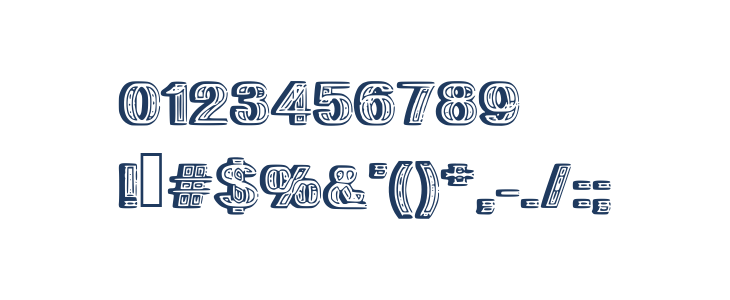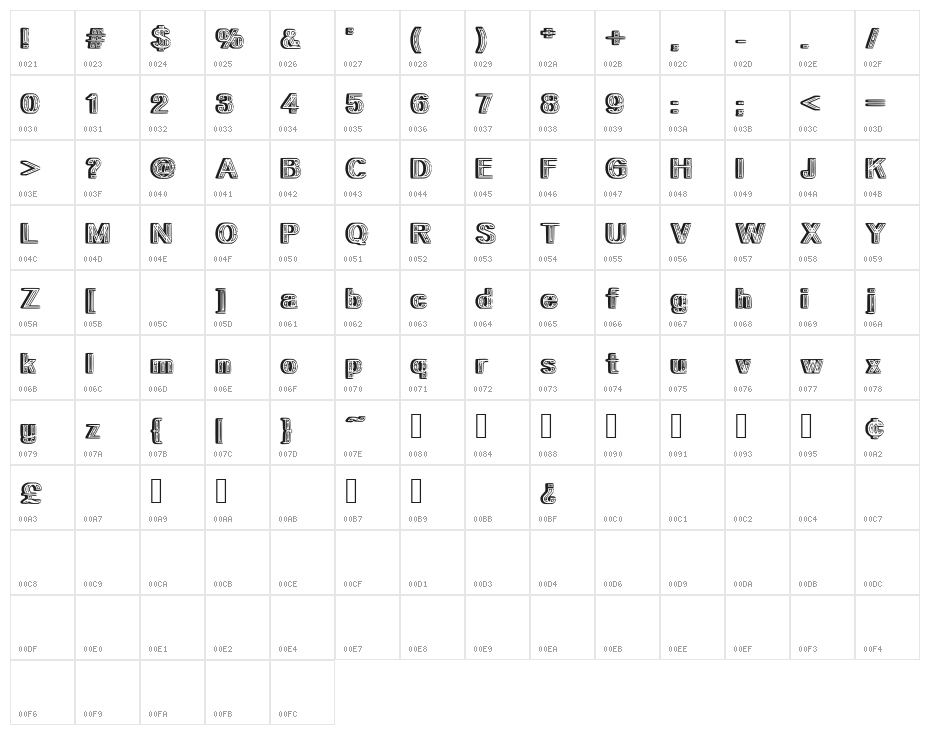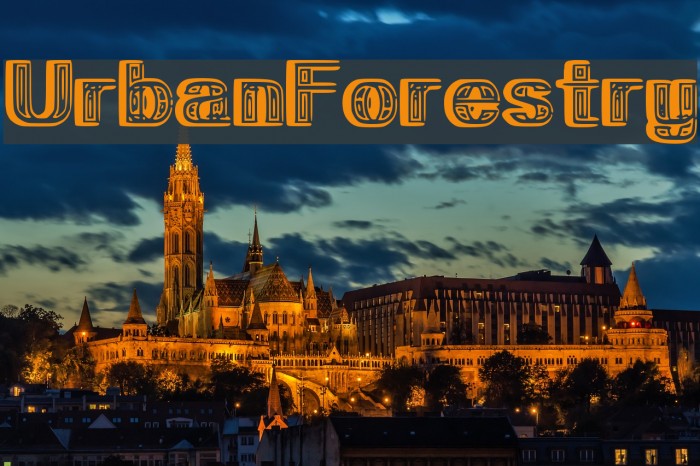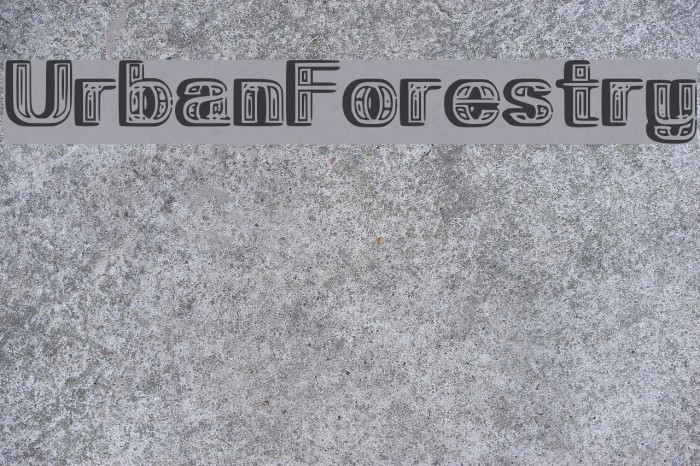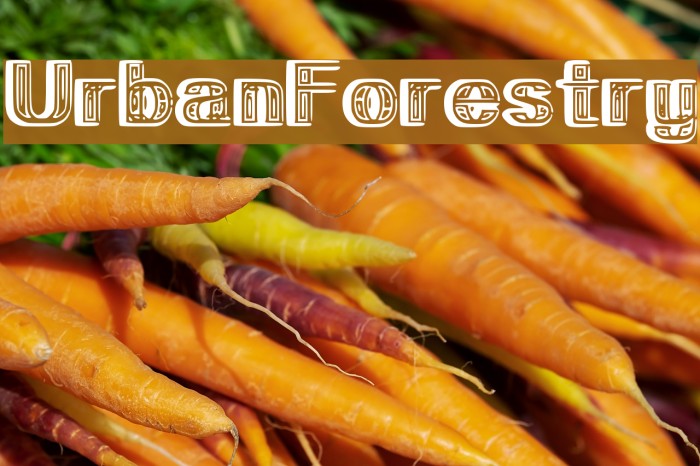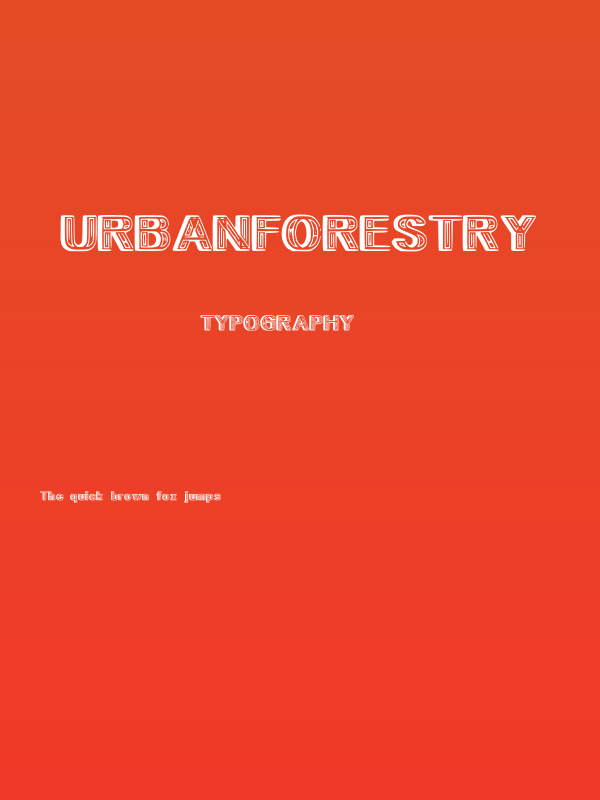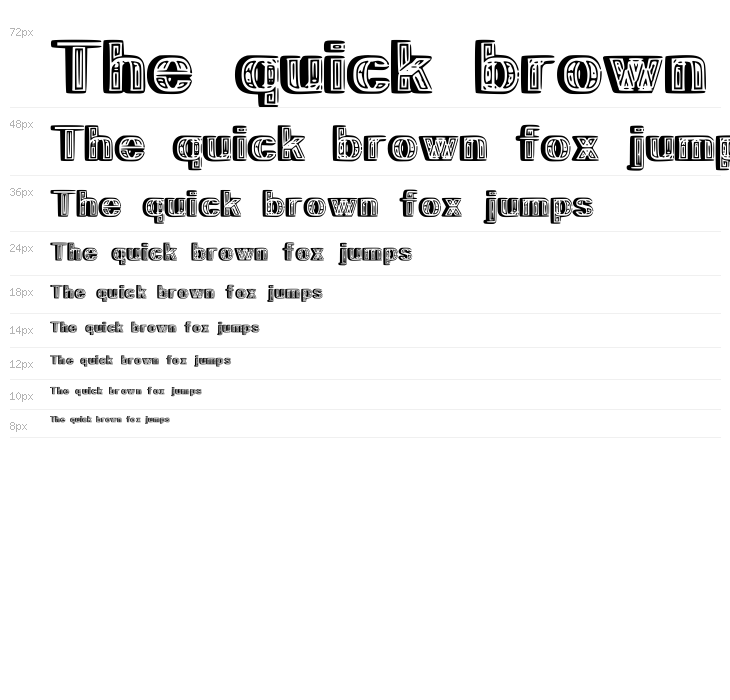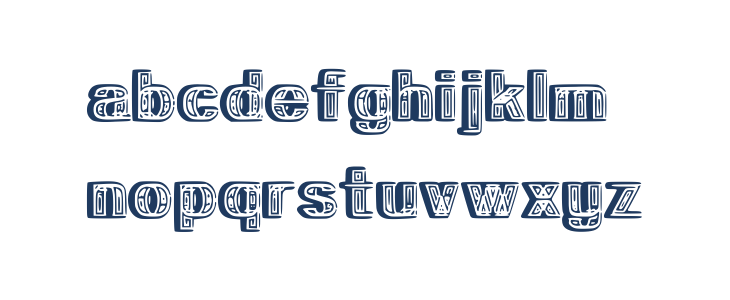
UrbanForestry Font
UrbanForestry Description
This font features a bold, decorative style with a unique urban flair. Each character is outlined with a thick border, giving it a three-dimensional appearance. The interior of the letters is filled with intricate patterns that resemble urban textures, such as brickwork or graffiti, adding a rugged and artistic touch. The uppercase and lowercase letters maintain a consistent style, with the uppercase being slightly more pronounced. Numbers and special characters follow the same design principles, ensuring a cohesive look across all elements. The font's boldness and decorative nature make it stand out, making it ideal for projects that require a strong visual impact.
| Overall Style | Urban, Decorative |
| Proposed Projects | Ideal for urban-themed posters, streetwear branding, music album covers, and graffiti art projects. |